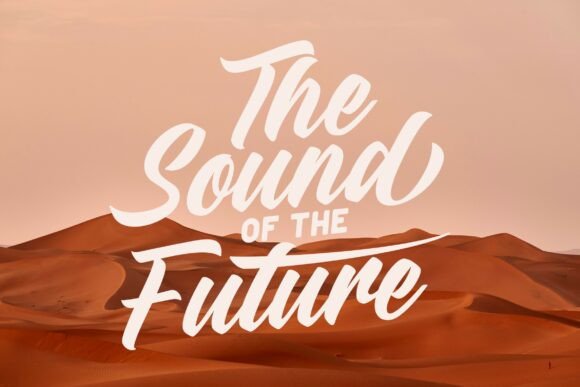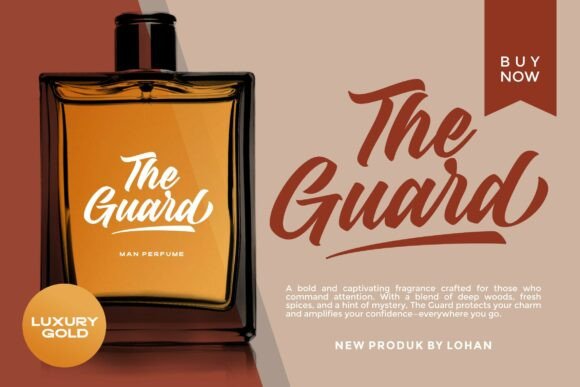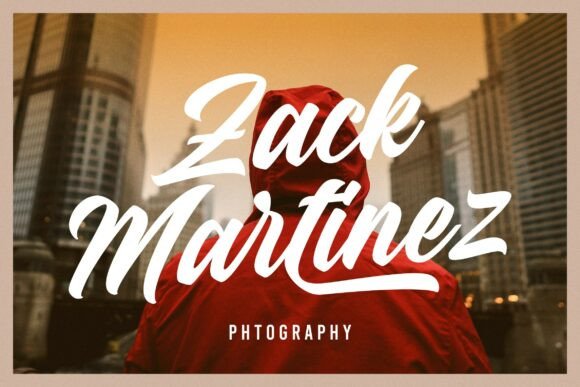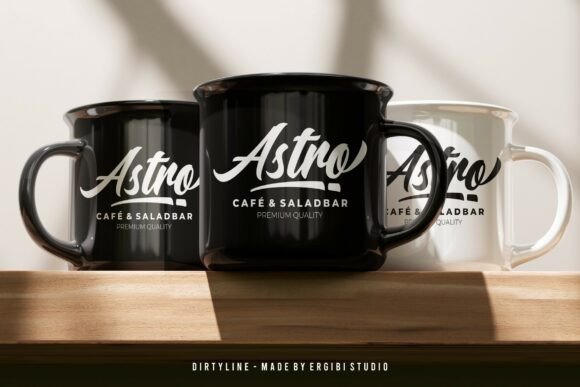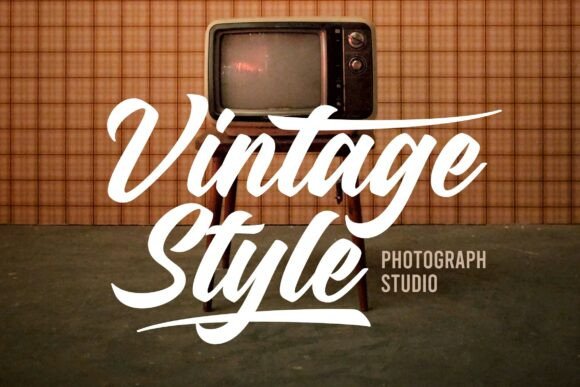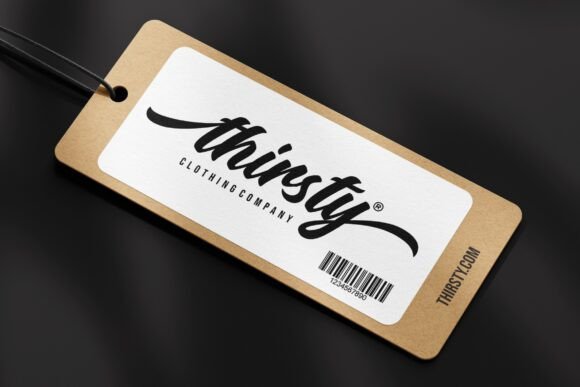
Introduction to Dirtylane Font
Do you remember the moment when a single font choice changed the entire vibe of your design project? It’s a moment that happens to the best of us – a moment of pure creative bliss. As designers, we’re always on the lookout for that one font that elevates our work to the next level. Enter the Dirtylane Font, a bold and energetic script font that’s about to become your new best friend.
With its high-quality design and free download option, Dirtylane Font is a valuable resource for any creative project. Whether you’re working on logos, badges, clothing designs, or product labels, this font is sure to bring a touch of stylish calligraphy to your work. And with its transparent background, you can rest assured that your designs will look sharp and clean, no matter the background.
What sets Dirtylane Font apart is its endless customization possibilities. Equipped with uppercase and lowercase letters, numbers, punctuation marks, and a rich set of alternate characters and ligatures, this font offers the perfect balance of style and flexibility. Whether you’re a seasoned designer or just starting out, Dirtylane Font is sure to become a go-to design resource that helps you bring your creative vision to life.
Key Features of Dirtylane Font
- High-quality design resource with a unique, bold aesthetic, ideal for creative projects.
- Comes with a transparent background, allowing for seamless integration into various design applications.
- Features a clean and modern design, perfect for use in logos, branding materials, and digital graphics.
- Size: Includes multiple font sizes and weights, providing versatility for various design applications.
Honest Review: Dirtylane Font
As a designer, I’m always on the lookout for high-quality design resources to elevate my creative projects. Recently, I had the chance to work with the Dirtylane Font, and I’m excited to share my honest review.
- Unique style: The font’s unique blend of rustic and modern elements makes it perfect for creating eye-catching headings and titles.
- Transparent background: The font’s transparent background allows for easy layering and compositing, giving me more flexibility in my design process.
- Limited font weights: The Dirtylane Font comes in only a few weights, which can limit its versatility in certain design projects.
- No italic or bold versions: While the font is available in regular and bold weights, there are no italic or bold-italic versions, which can be a limitation for designers who need to emphasize certain text.
Overall, the Dirtylane Font is a solid addition to any designer’s toolkit. While it may have some limitations, its unique style and transparent background make it a valuable resource for creative projects. If you’re looking for a high-quality font to elevate your designs, I’d definitely recommend giving the Dirtylane Font a try.
To get the most out of Dirtylane Font, experiment with different font sizes, colors, and combinations. This versatile font can be used in a variety of creative projects, from branding to graphic design.
Dirtylane Font is ideal for use in creative projects such as logo design, social media graphics, and business cards. Its high-quality design and transparent background make it a valuable design resource for any project.